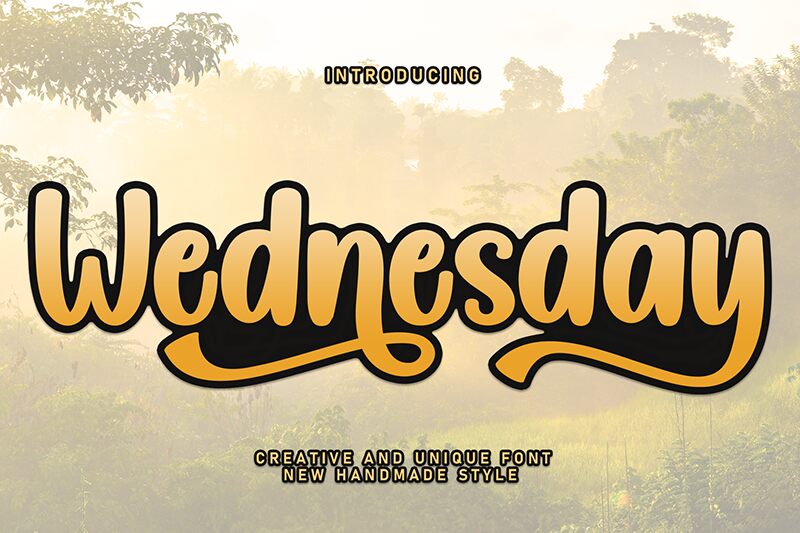
Wednesday
Wednesday font by Scratchones is a bold brush font that captures attention with its lively and expressive qualities. The free handwritten font carries casual and friendly ambiance, vivid curves, and strokes that appears natural yet controlled. Equal spaces between the letters are maintained for a modern look alongside thick width presence.